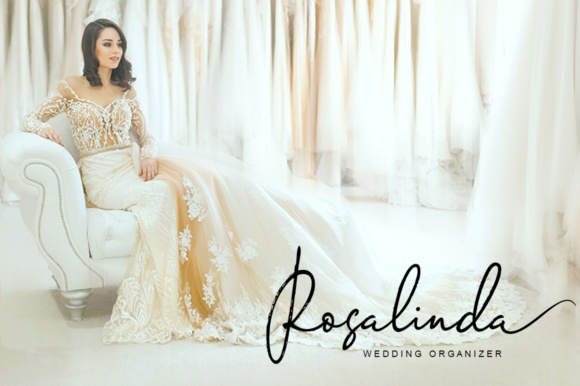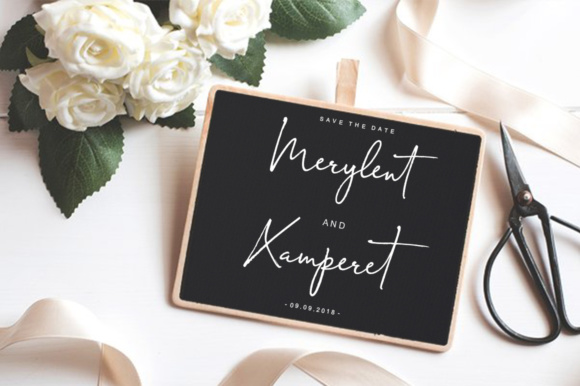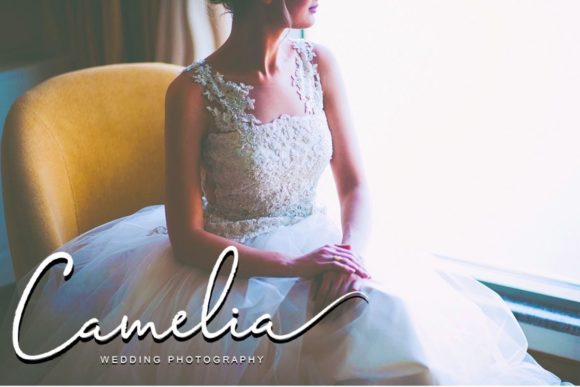
Introduction to President Font
President is a script font featuring a variable baseline.
It has fine lines that give the font a classic, modern touch The President font will add a elegant touch to your designs.
Key Features of President Font
Why Choose President Font?
President Font offers exceptional quality and versatility, making it a valuable addition to your design toolkit. Whether you’re creating for personal projects or commercial use, President Font delivers professional results.